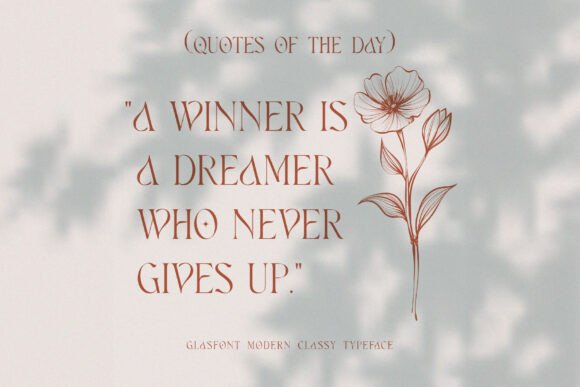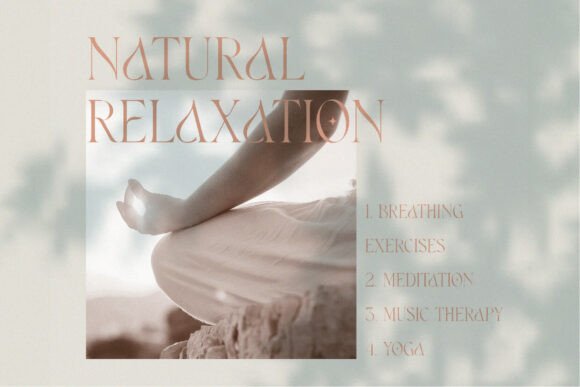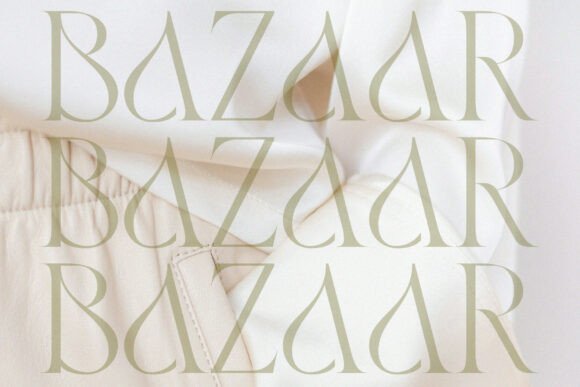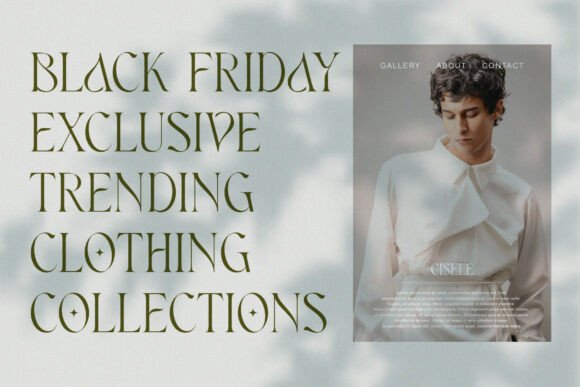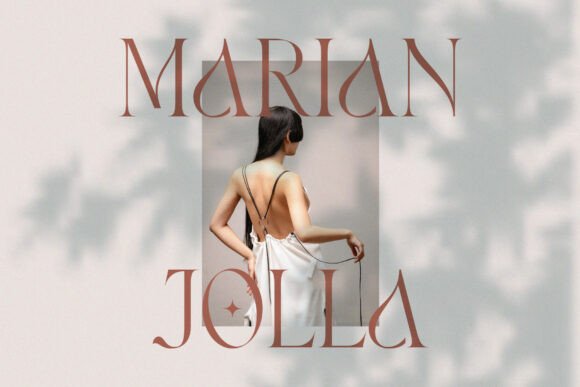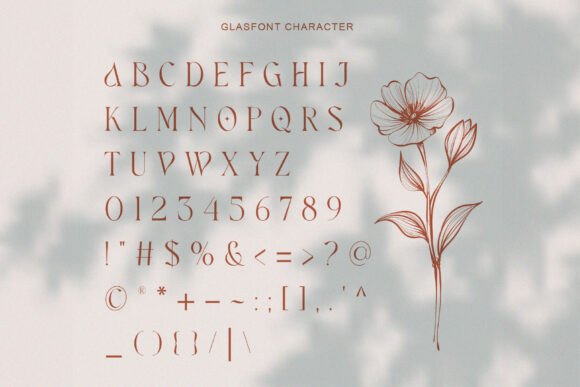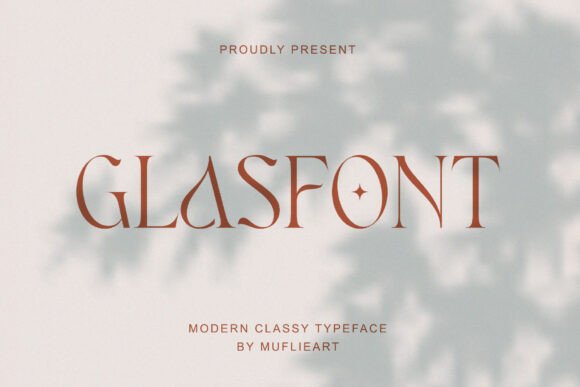
Glasfont: Elevate Your Design with Modern Elegance
In the realm of typography, few fonts manage to capture the essence of luxury and sophistication as effectively as Glasfont. This stunning typeface is a masterful blend of sharp geometric precision and high-fashion flourishes, making it an unparalleled choice for designers and crafters seeking to elevate their projects with a touch of premium elegance.
The Essence of Glasfont
Glasfont is more than just a font – it’s an experience. Its sleek, modern design exudes a sense of celestial charm, perfect for projects that demand a high-end aesthetic. Whether you’re working on jewelry branding, high-end editorial layouts, or sophisticated cosmetic packaging, Glasfont is the ideal choice to convey luxury, refinement, and style.
Key Features of Glasfont
- Geometric Precision: Glasfont’s sharp, geometric lines create a sense of modernity and sophistication, making it perfect for designs that require a clean and contemporary look.
- High-Fashion Flourishes: The font’s elegant flourishes add a touch of high-fashion glamour, elevating your designs to new heights of luxury and refinement.
- Premium Luxury: Glasfont’s overall aesthetic is one of premium luxury, making it an exceptional choice for brands and designers seeking to convey high-end quality and sophistication.
Applications of Glasfont
Glasfont’s versatility makes it suitable for a wide range of applications, including:
- Jewelry Branding: Glasfont’s luxurious aesthetic makes it perfect for jewelry brands seeking to convey high-end quality and sophistication.
- High-End Editorial Layouts: The font’s elegant design makes it an excellent choice for high-end editorial layouts, such as fashion magazines and luxury lifestyle publications.
- Sophisticated Cosmetic Packaging: Glasfont’s modern elegance makes it an ideal choice for cosmetic packaging that demands a high-end look and feel.
Why Choose Glasfont?
With so many fonts available, why choose Glasfont? Here are just a few reasons why designers and crafters are drawn to this exceptional typeface:
- Unique Aesthetic: Glasfont’s blend of geometric precision and high-fashion flourishes creates a truly unique aesthetic that’s hard to find in other fonts.
- High-Quality Design: The font’s high-quality design ensures that it will look great in any application, from digital designs to print materials.
- Versatility: Glasfont’s versatility makes it suitable for a wide range of applications, from jewelry branding to editorial layouts and cosmetic packaging.
Tips for Using Glasfont
To get the most out of Glasfont, here are a few tips to keep in mind:
- Use it Sparingly: Glasfont’s luxurious aesthetic can be overwhelming if used excessively. Use it sparingly to create a sense of drama and emphasis.
- Pair it with Neutrals: Glasfont pairs beautifully with neutral fonts, such as sans-serifs or serifs. Use this combination to create a sense of balance and harmony.
- Experiment with Colors: Glasfont looks great in a range of colors, from metallics to pastels. Experiment with different colors to find the perfect combination for your design.
Glasfont is a true masterpiece of modern elegance, blending sharp geometric precision with high-fashion flourishes to create a typeface that’s both luxurious and sophisticated. Whether you’re a designer or crafter, Glasfont is an exceptional choice for projects that demand a high-end aesthetic. With its versatility, unique aesthetic, and high-quality design, Glasfont is sure to elevate your designs to new heights of luxury and refinement.